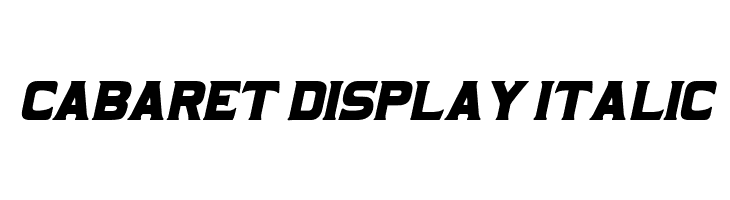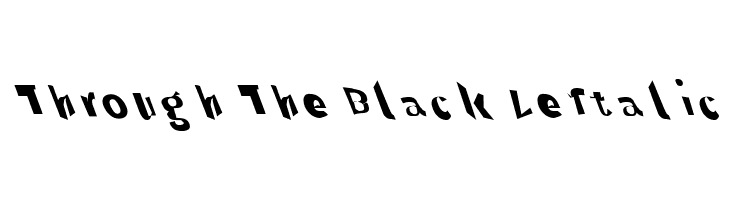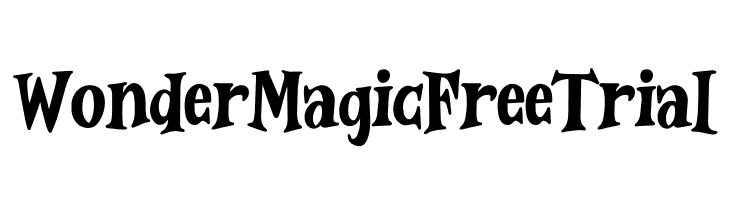
A whimsical and playful font with exaggerated curves and a hand-drawn style.
A bold, geometric font with sharp, angular edges and a modern style.
A bold, futuristic font with geometric shapes and high contrast.
A dynamic, futuristic font with gradient effects and italicized, angular lines.
A decorative, steampunk-inspired font with gear-like embellishments.
A bold, expressive script font with a dynamic, handwritten style.
A bold, italicized font with sharp angles and a dynamic, modern style.
A lively and expressive script font with interconnected letters and artistic flair.
A bold, distressed font with a vintage, grunge aesthetic.